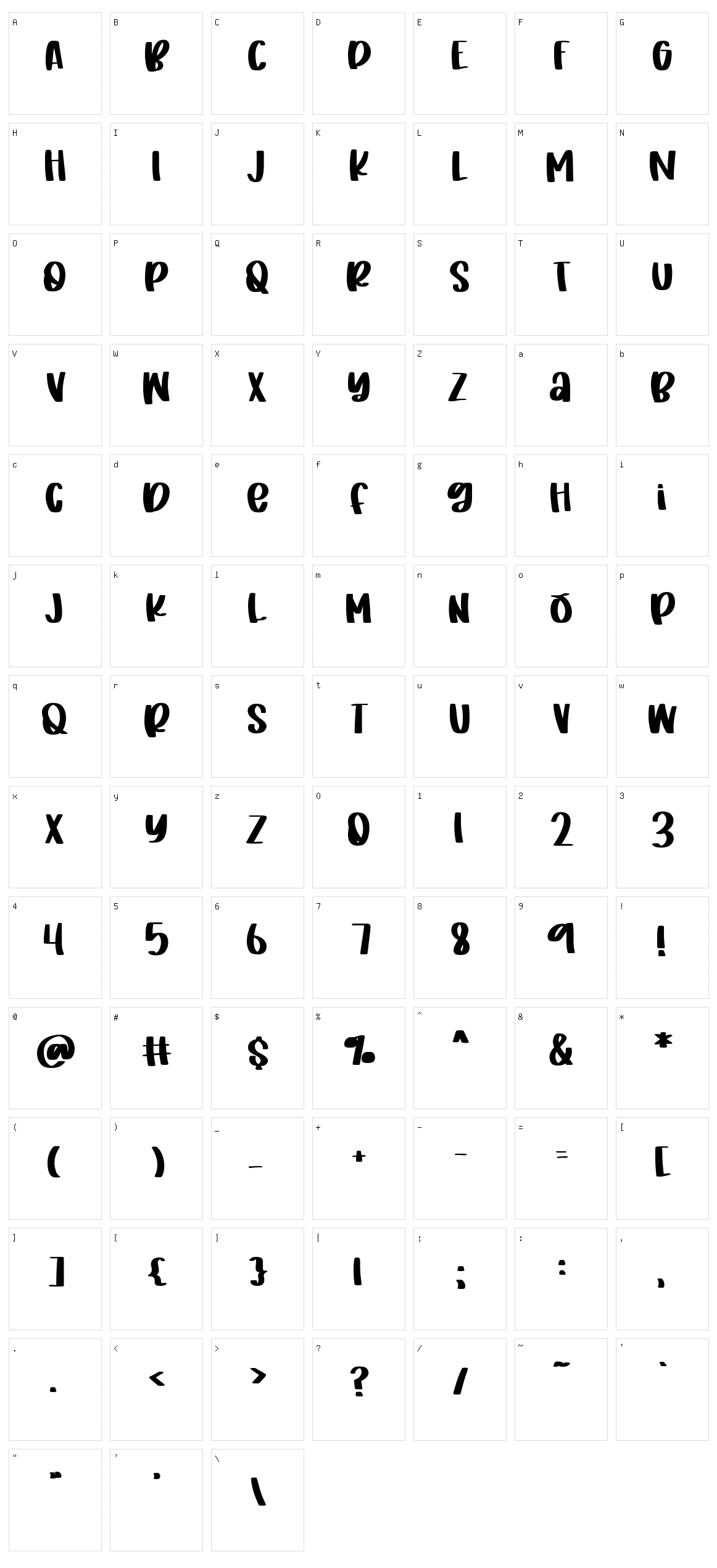
The free font FB Strawberry is carefully designed by Font Bundles, showcasing a thoughtful balance of creativity and usability and falls under the Cartoon font style. When you download the ZIP file, it contains only 24.34 KB of font files, making it lightweight and quick to download. Please review the license details below to understand permitted usage and distribution rights. If license information is not available, we recommend using this font for personal projects only or contacting the author directly for commercial usage permissions.